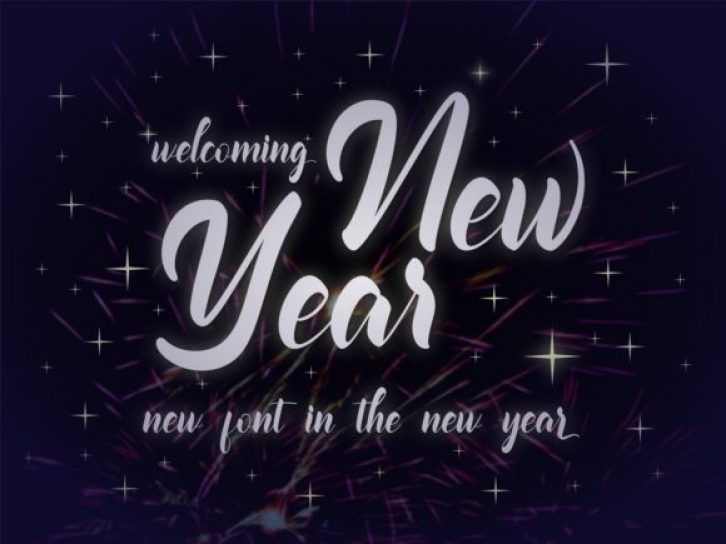
Welcoming New Year is a strong lettering handwritten font. Expertly designed to be a true favorite, this font has the potential to take your creative ideas to the highest level!